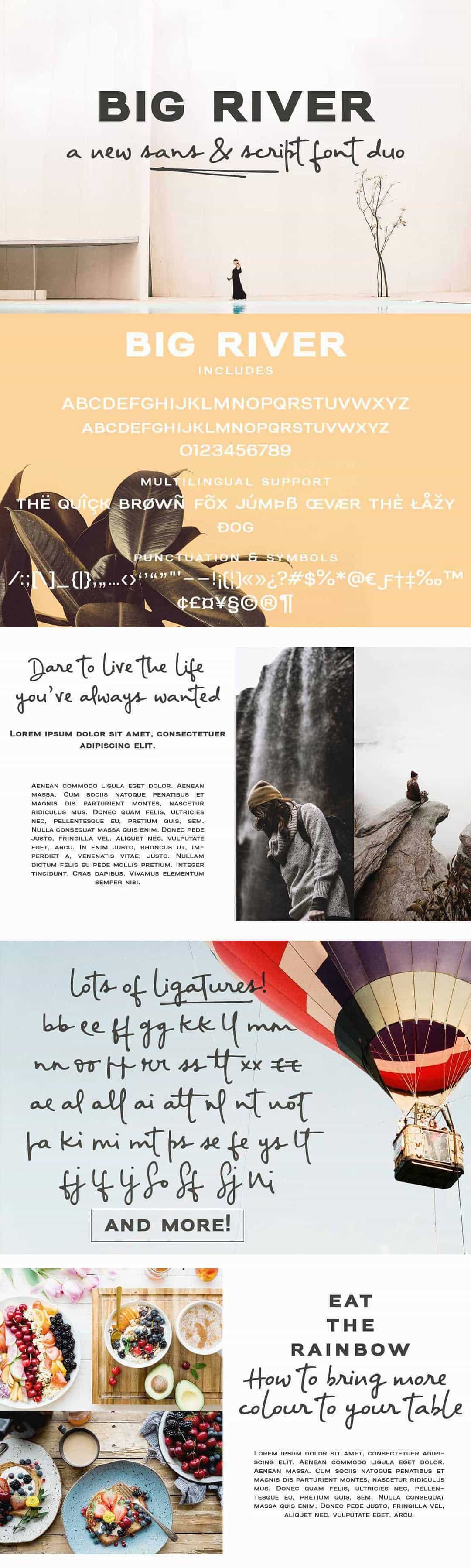
Big River Font Family
Discover Big River Font Family, part of the   Sans Serif  Handwritten collection—a versatile and unique font perfect for adding a personal touch to your projects. Download it for free and enjoy crafting designs with style, from invitations to social media posts. This font is available exclusively for personal use, giving you the freedom to create without limits. Unlock your creativity with Big River Font Family today!
Big River, created for digital and printed media and packaged with Ana’s Fonts is a handwritten sans serif elegant script typeface comprising three styles with caps & small caps, regular& slanted handwritten types, & additional swashes to give more authentic aesthetics.